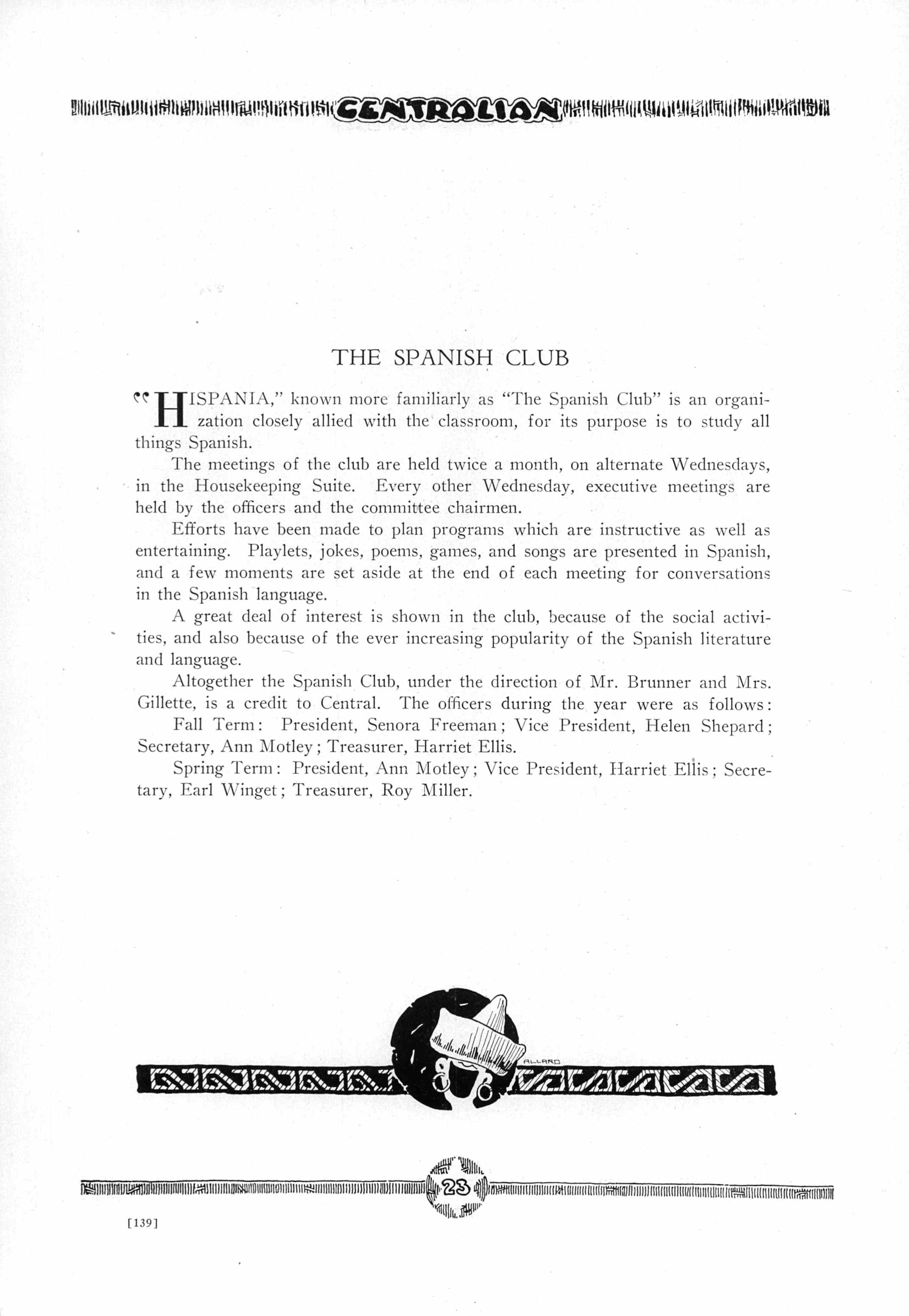
Richard Deane Taylor was born Meyer Tuckschneider on January 13, 1925, in Manhattan, New York City, according to the New York, New York Birth Index at Ancestry.com and his World War II draft card.
Taylor was interviewed by P.C. Hamerlinck in Alter Ego #2, Autumn 1999. Taylor said he “was born on the Lower East Side of Manhattan in 1925, the youngest of three brothers and sisters.” The 1925 New York state census recorded the Tuckschneider family at 234 Monroe Street in Manhattan. Taylor was the youngest of five siblings. Taylor’s parents and three older sibling were born in Poland and immigrated in 1922. His father was a tailor.
Detail, Lower East Side. In 1925, Taylor’s home was
a 15-minute walk to Jack Kirby at 131 Suffolk Street.
At some point the Tuckschneider family moved to Brooklyn. The 1930 U.S. Federal Census said they resided at 355 South 23rd Street.
According to the 1940 census, the family had moved to the Bronx at 797 161st Street.
In the interview Taylor said
I attended Brooklyn Technical High School, a 45-minute trip from my home in the Bronx. After the first two years of classes, studying mechanical and free-hand drawing among other technical subjects, my art teachers encouraged me to select the art program as my major for the remaining two years. Their arguments were all the more persuasive as they had rewarded me with numerous citations and a medal for my first two years of art.
Taylor was one of eighteen students who contributed initial letters and decorative design to the January 1942 yearbook, Blueprint. Taylor did not sign his work.
Taylor explained how he went to work for Fawcett Publications while still in school.
During my junior year in high school, a Dr. [Alexander] Aposdorf [sic], having seen some of my illustrated and lettered notebooks, suggested I get in touch with Frank Taggart [see sidebar] at Fawcett Publications and show him my work. Taggart was a former student of Dr. Aposdorf and a graduate of Brooklyn Technical High School where I attended. I called him a few days later and he invited me to come up and see him at Fawcett’s offices with samples of my work. He looked at my portfolio with great interest, but what caught his eye was my lettering. At Tech we were required to letter all our notebooks and, needless to say, after three years of lettering, I could letter faster than I could write.Taggart was so enthused with the quality of my work that he suggested we both go in and meet with Fawcett’s art director, Al Allard [see sidebar]. Upon reviewing my lettering samples, he asked if I would be interested in doing some speedball lettering for Fawcett He promptly handed me a set of eight penciled pages of a Whiz Comics Lance O’Casey story, along with a typewritten script. Since I was still a student at Tech, I did the lettering in the evenings and brought back the finished pages to his office the following week, after school. …
Taylor received more lettering assignments. Later he approached C. C. Beck about joining the Captain Marvel staff. Beck gave him an art test which he passed. Taylor inked the rope panels on three pages of “Captain Marvel and the Lie Detector” in Captain Marvel Adventures #23, April 1943.
On January 13, 1943, Taylor signed his world War II draft card. His Bronx address was 752 Trinity Avenue. Taylor’s description was five feet eight inches, 150 pounds, with black hair and brown eyes. This might be his serial number 32902307.
Taylor said he planned to continue his comic book career after the war. During the war he created posters, made training charts and illustrated manuals. This work affected his decision to pursue editorial and advertising commercial art
An obituary in The New York Times, November 25, 2014, said
He changed his name to Richard Deane Taylor in 1943, before he was drafted. In the U.S. Army, Richard received an American Service Medal, a Good Conduct Medal, and a Word War II Victory Medal. After his honorable discharge in 1946 as a sergeant, correctional custodial personnel/military police for the U.S. Disciplinary Barracks, Richard studied fine arts at the Academie de la Grande Chaumiere and the National School of Fine Arts/École nationale supérieure des Beaux-Arts in Paris, France.
Taylor has not yet been found in the 1950 census.
Five airline passenger lists, from 1951, 1952, 1953 and 1962, show Taylor departing Paris, France for New York. In 1953 he sailed from Paris to New York.
Taylor’s portrait of Chicago Tribune sports writer Arch Ward appeared in Collier’s, August 12, 1950. His artwork graced the cover of Collier’s, October 27, 1951.
Taylor was one of the illustrators chosen for the 1955 Imperial whiskey advertisements. Additional credits are at Who’s Who of American Comic Books 1928–1999.
The 1960 Manhattan, New York City directory listed Taylor at 42 East 50th Street.
On August 29, 1963, Taylor and Helena Roine obtained a marriage license (number 6164) in the Bronx.
Taylor produced maps for three books by Dan Kurzman. Depending on the map, Taylor lettered all or most of the text. Some map titles were typeset.
The Race for Rome (1975)
Rome 1943–44, detail below
Ben-Gurion: Prophet of Fire (1983)
Fatal Voyage: The Sinking of the USS Indianapolis (1990)
Endpaper, detail below
Taylor said he was an art teacher at the high school and university levels. For over twenty-five years, Taylor was the Acting Chairman of the Art Department of the High School of Art and Design. He retired in 1989 and pursued painting in oil and gouache, and work in other media.
Taylor passed away on November 21, 2014, in New York City. He was laid to rest at the Brigadier General William C. Doyle Memorial Cemetery.
After 36 years at Fawcett, Allard returned to Minnesota where he retired in 1970.
Allard passed away on August 4, 1994, in St. Louis Park, Minnesota. He was laid to rest at Lakewood Cemetery.